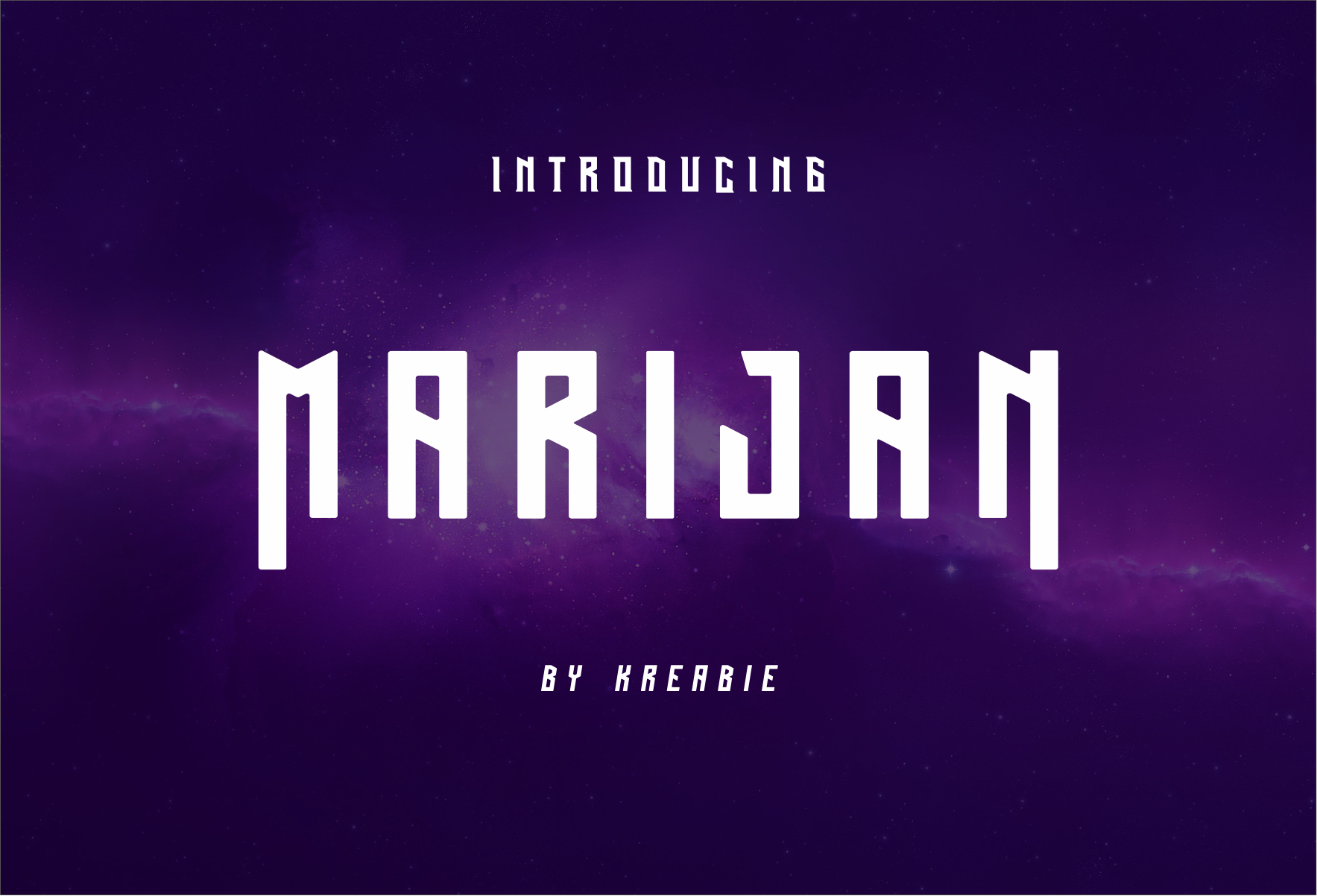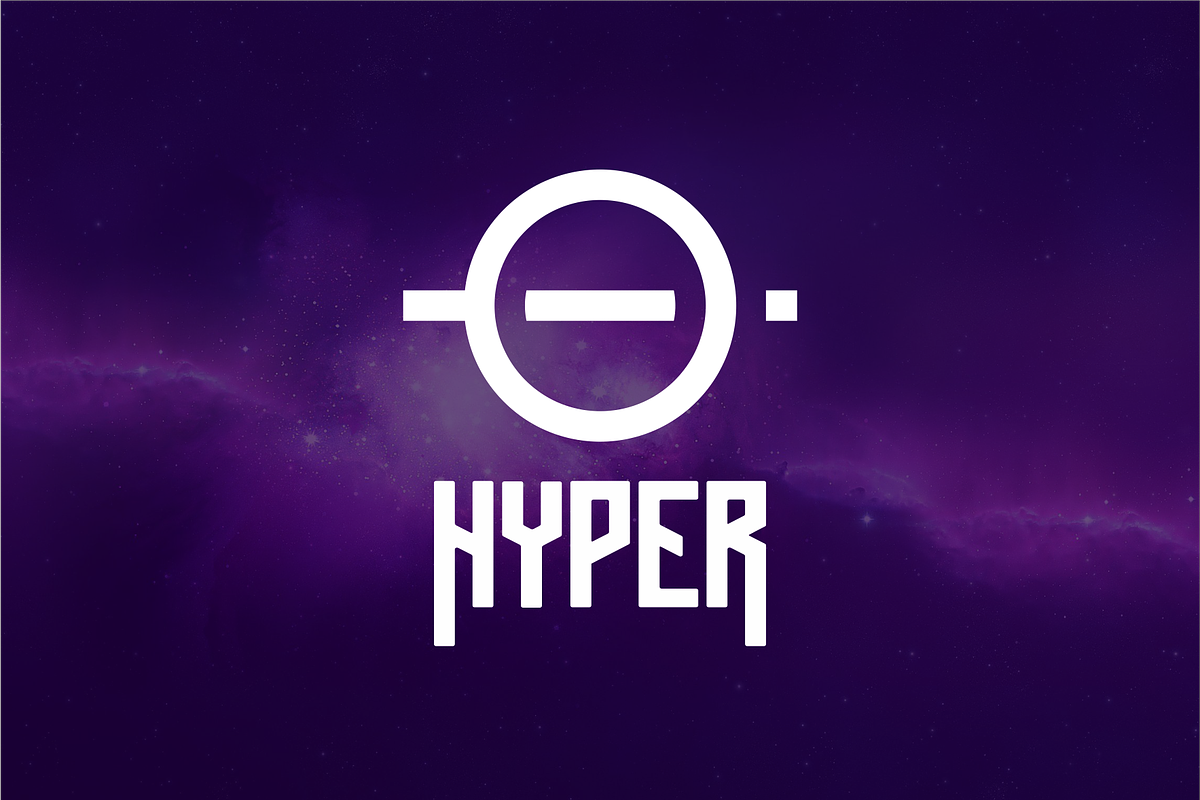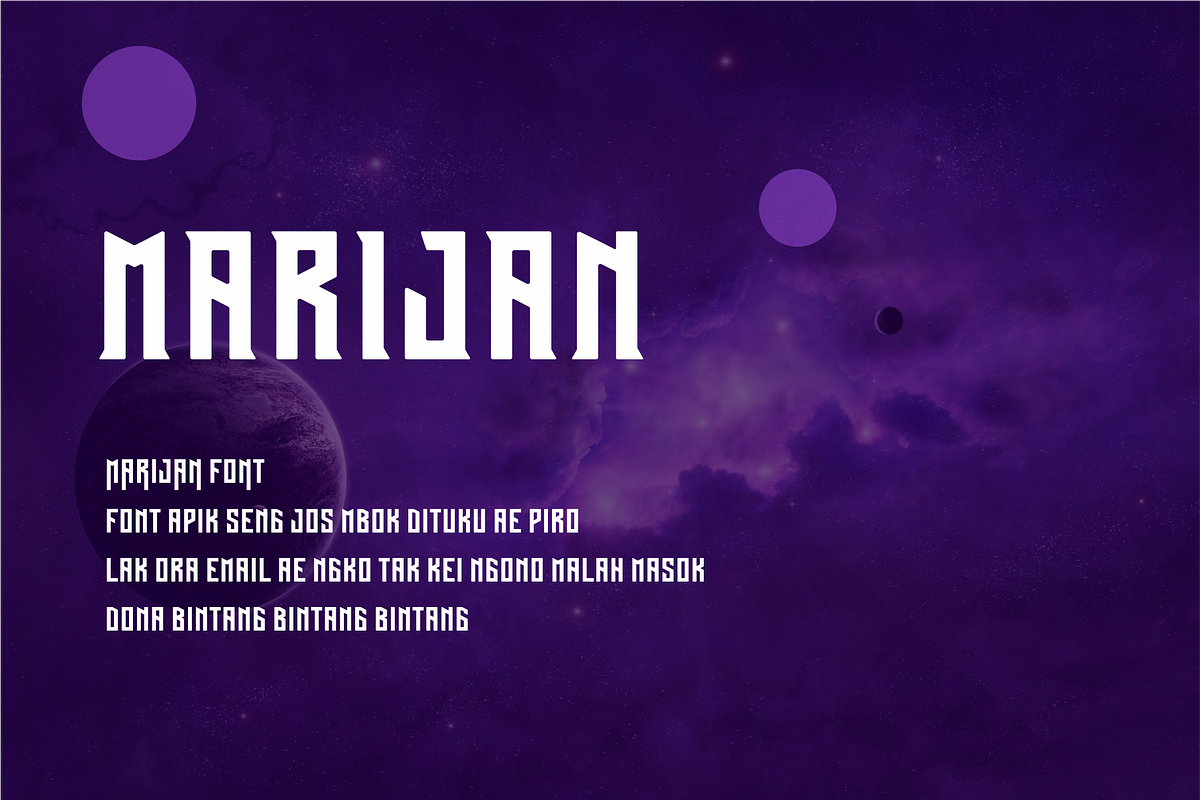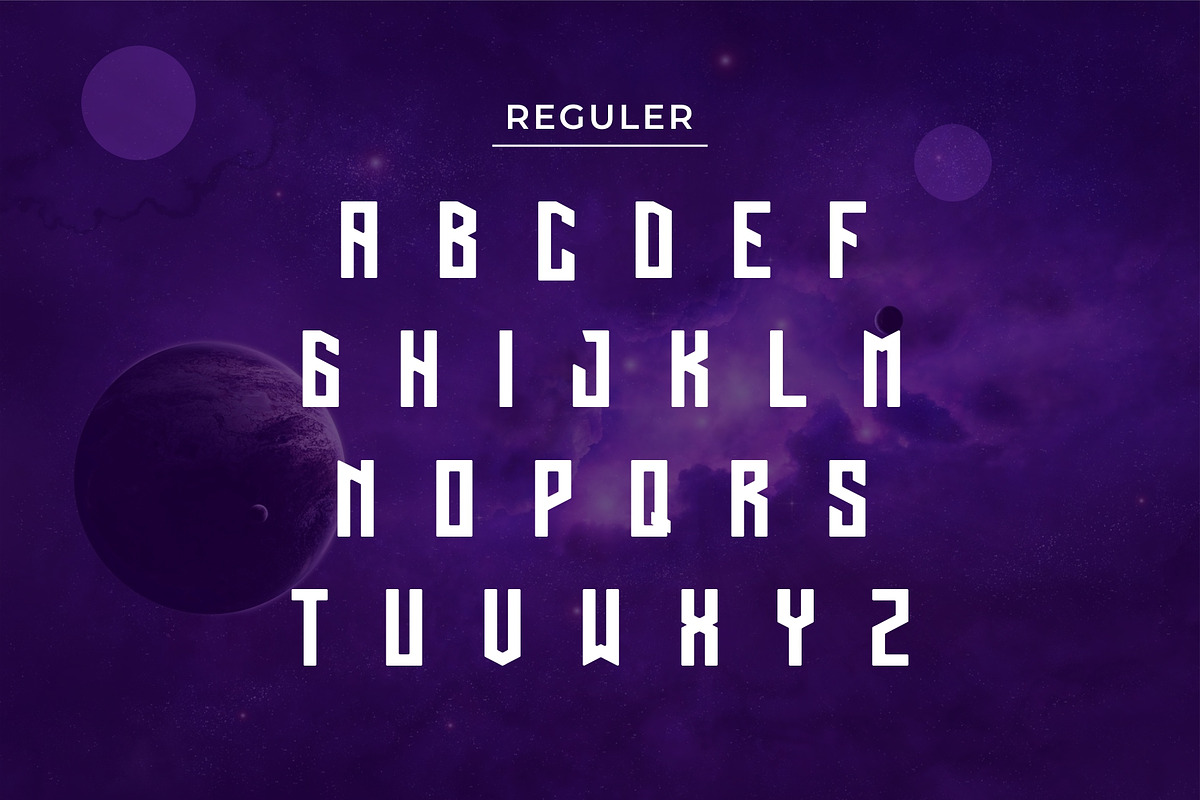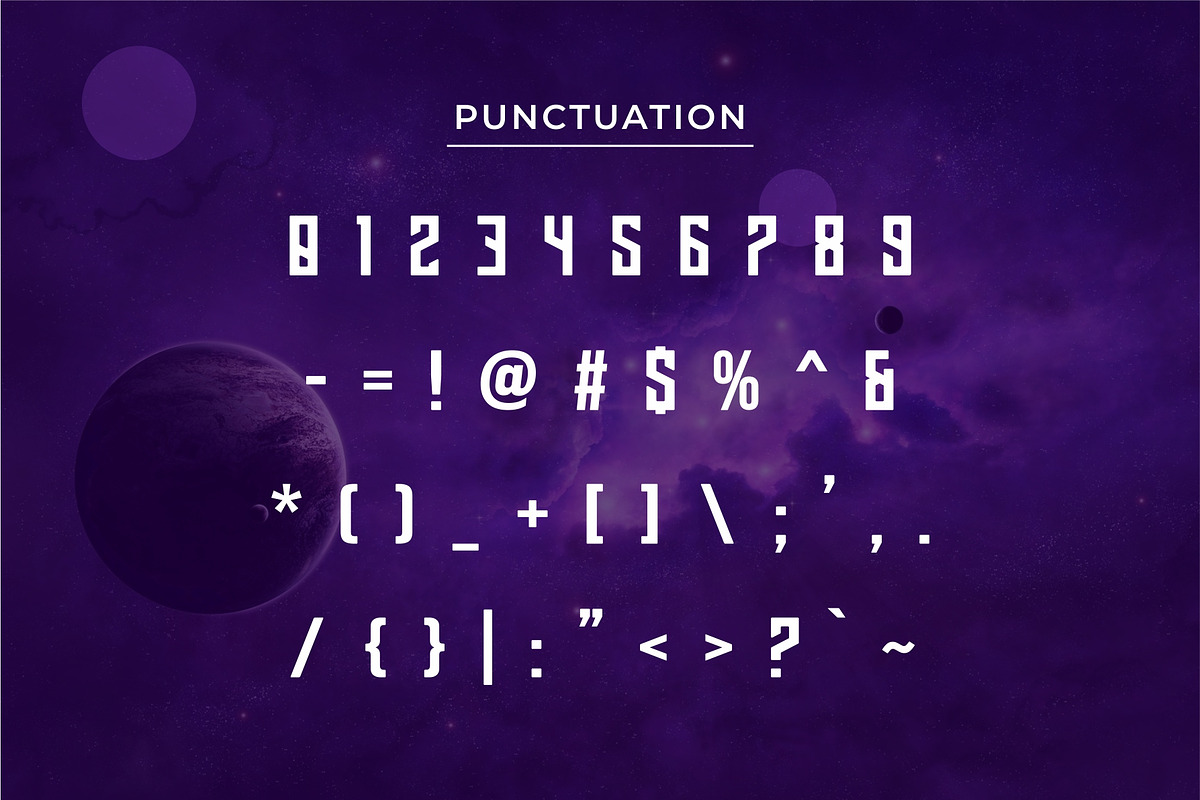
MARIJAN Font
MARIJAN font. MARIJAN Its unique style makes it stand out from other fonts, making it perfect for anyone who wants to make a statement.,The font is suitable to use for many occasion.
- 3 Style : Reguler, Italic & Serif
- Basic Latin A-Z
- Punctuation & Symbol